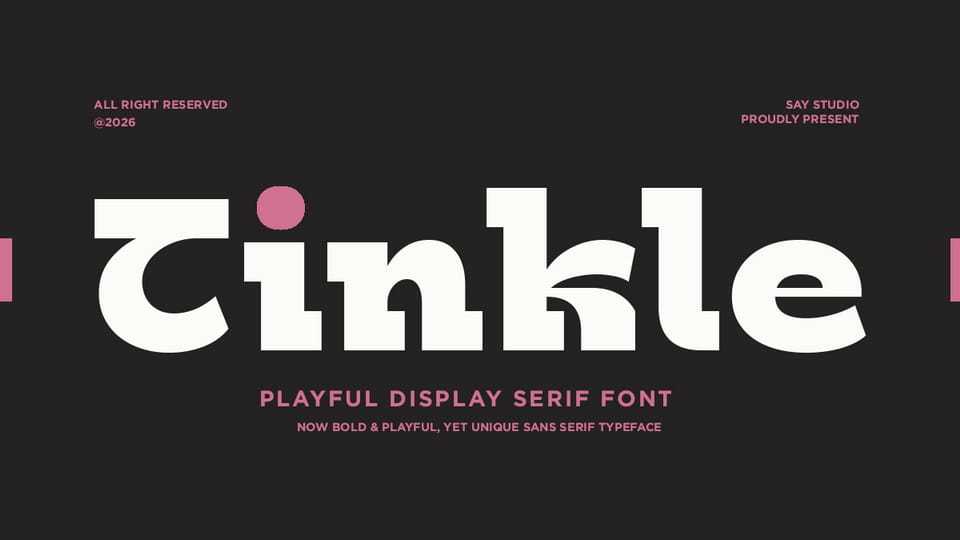
Download Tinkle font, a playful display serif typeface designed to bring charm, personality, and creative energy into modern design projects with its bold shapes, soft curves, and distinctive character details.